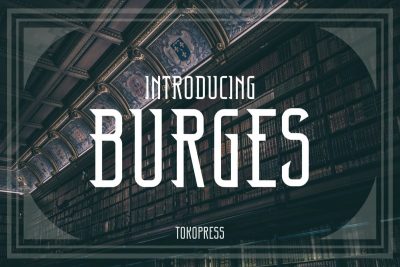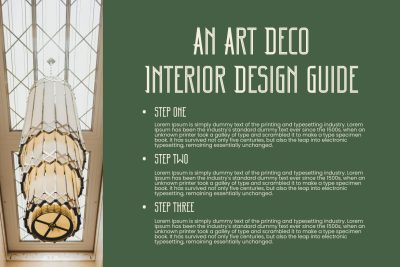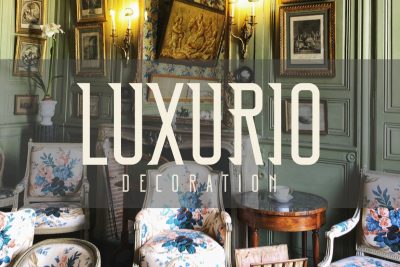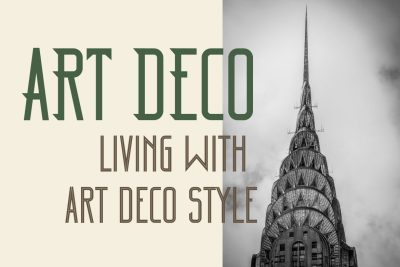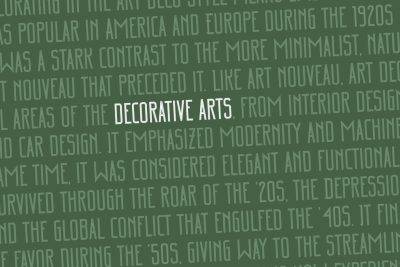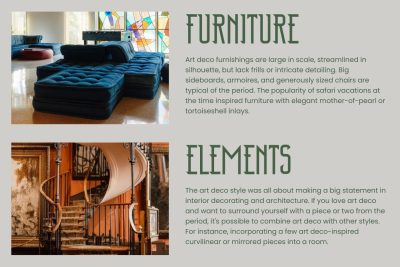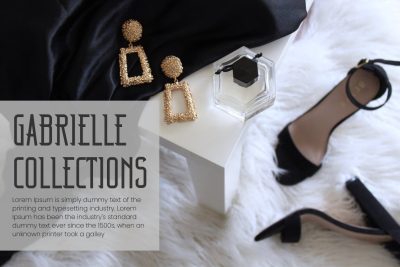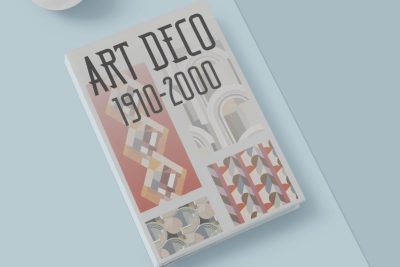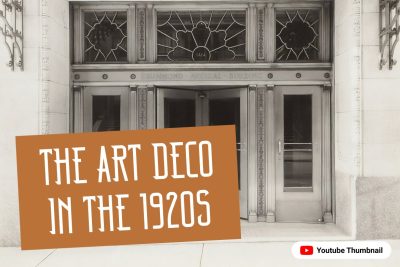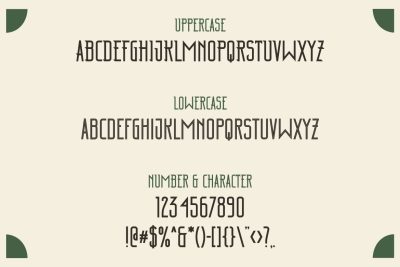
Burges – Classic Art deco font
Vintage Font Burges
Burges
Vintage Font Burges is a striking display typeface inspired by Gothic architecture and classic typography. Perfect for projects that need a bold, authoritative aesthetic, this unique typeface combines sharp lines with a refined structure. As a result, it adds historical depth and sophistication to your designs. Vintage Font Burges works beautifully for branding, posters, book covers, and editorial layouts where a sense of grandeur is essential.
Made to stand out, Burges brings a timeless appeal to various design projects. Not only does it capture attention immediately, but it also adds character and intrigue to your work. Whether used for logos or promotional materials, this font delivers a powerful visual impact while remaining readable.
Ideal Uses and Benefits of the Burges Typeface
The Burges font is particularly suited for projects that require both elegance and strength. Its bold, angular forms make it ideal for posters, album covers, and book titles, giving these designs a unique touch that sets them apart. Additionally, itโ€™s perfect for branding projects that aim to communicate stability, tradition, and class. From corporate logos to heritage brands, Burges supports a strong brand identity.
In addition to print, this typeface also performs well in digital media, such as web headers, social media graphics, and ads. Its Gothic-inspired elements naturally draw attention and keep viewers engaged, making it perfect for creatives who want to leave a lasting impression. Furthermore, Burges complements other classic fonts, adding flexibility to your designs.
Why Choose Vintage Font Burges?
Choosing Burges means selecting a typeface that embodies vintage sophistication and historical depth. This font allows designers to convey a timeless message that resonates with audiences seeking authenticity. Moreover, its versatile style adapts to themes ranging from elegant to edgy, making it a valuable tool for designers who want to add uniqueness to their work.
On top of that, Burges adds a bold, confident look to any project. Each letterform balances sharp lines and intricate details, enhancing readability without sacrificing style. For those aiming to create a classic yet impactful design, Burges is an exceptional choice.
• Basic Latin A-Z and a-z, numbers, punctuations
• PUA Encoded Characters
Taking an art deco look, Burges is all about classic, with solid uppercase, and inline lowercase, it brings a lot of vintages feels to it.